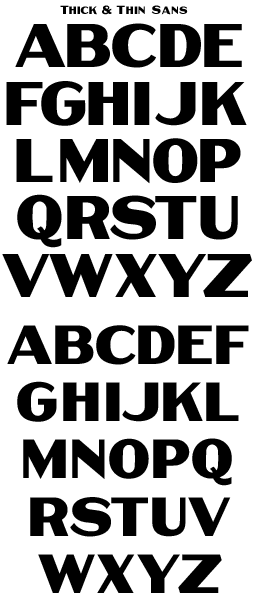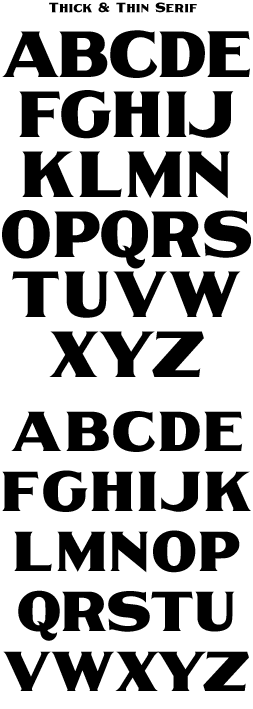
LHF Thick & Thin
Two styles: Sans Serif and Serif. This is a Henderson-inspired typeface from the early 1900's.
Includes numbers, full punctuation & accents